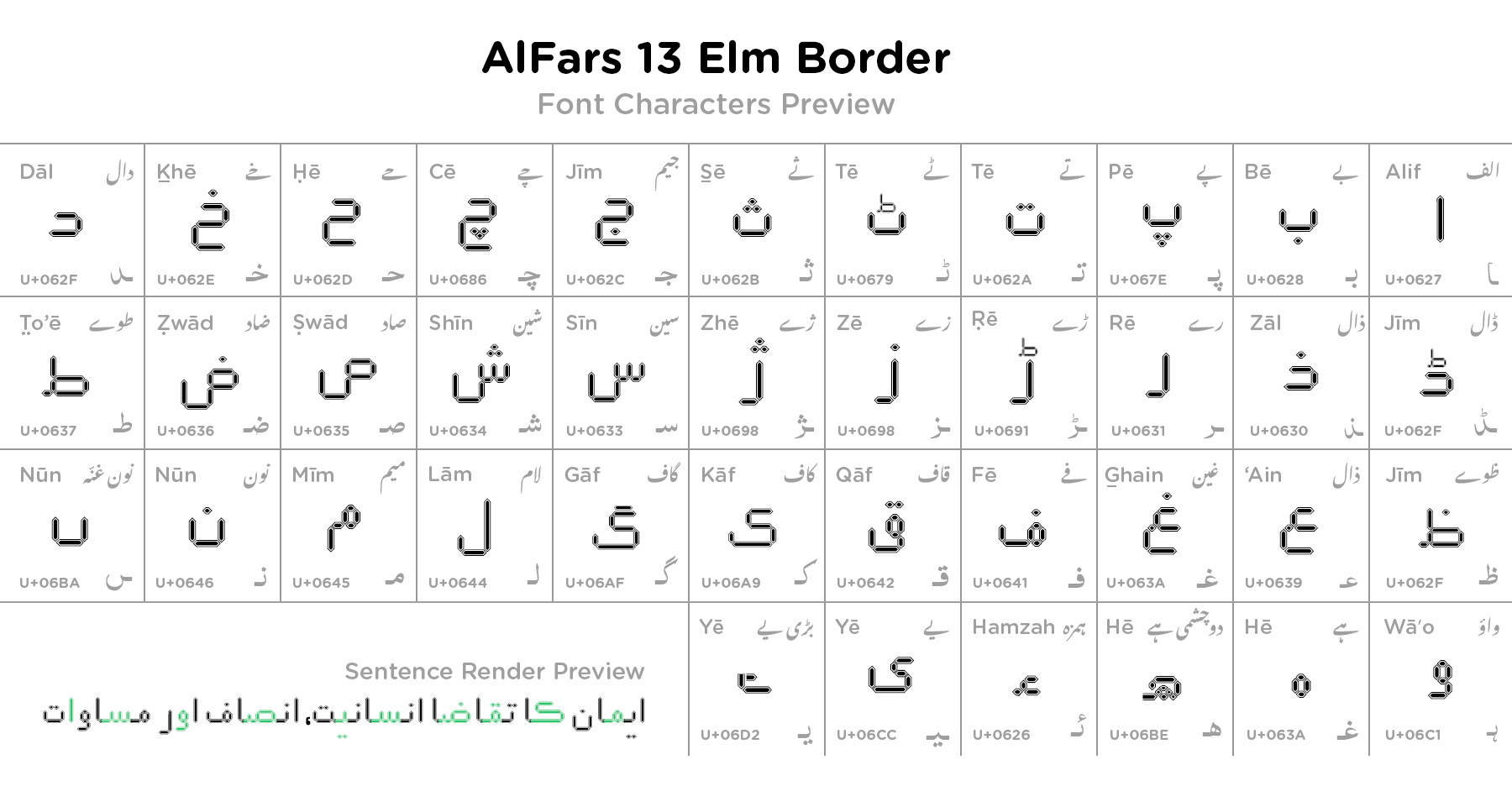
AlFars 13 Elm Border, designed by Syed Irtiza Hassan Rizvi and released on January 30, 2016, is a bold geometric font inspired by the Naskh script and influenced by digital clocks and calculators. It has 219 characters and 334 glyphs, perfect for creating and tweaking different kinds of designs. Moreover, it has support for Arabic, Urdu, Greek, Persian, and more, making it versatile for various languages and design needs. The font's thick, wide letters exhibit soft corners and terminals with a blocky appearance composed of interconnected small blocks of unequal sizing. With a constant thickness and strong, impactful strokes, this unique digital font maintains high legibility on screens, even at small sizes. Its medium-width and monospaced letters, with small horizontal spaces between them, resemble clock letters, adding a unique touch to digital configurations.